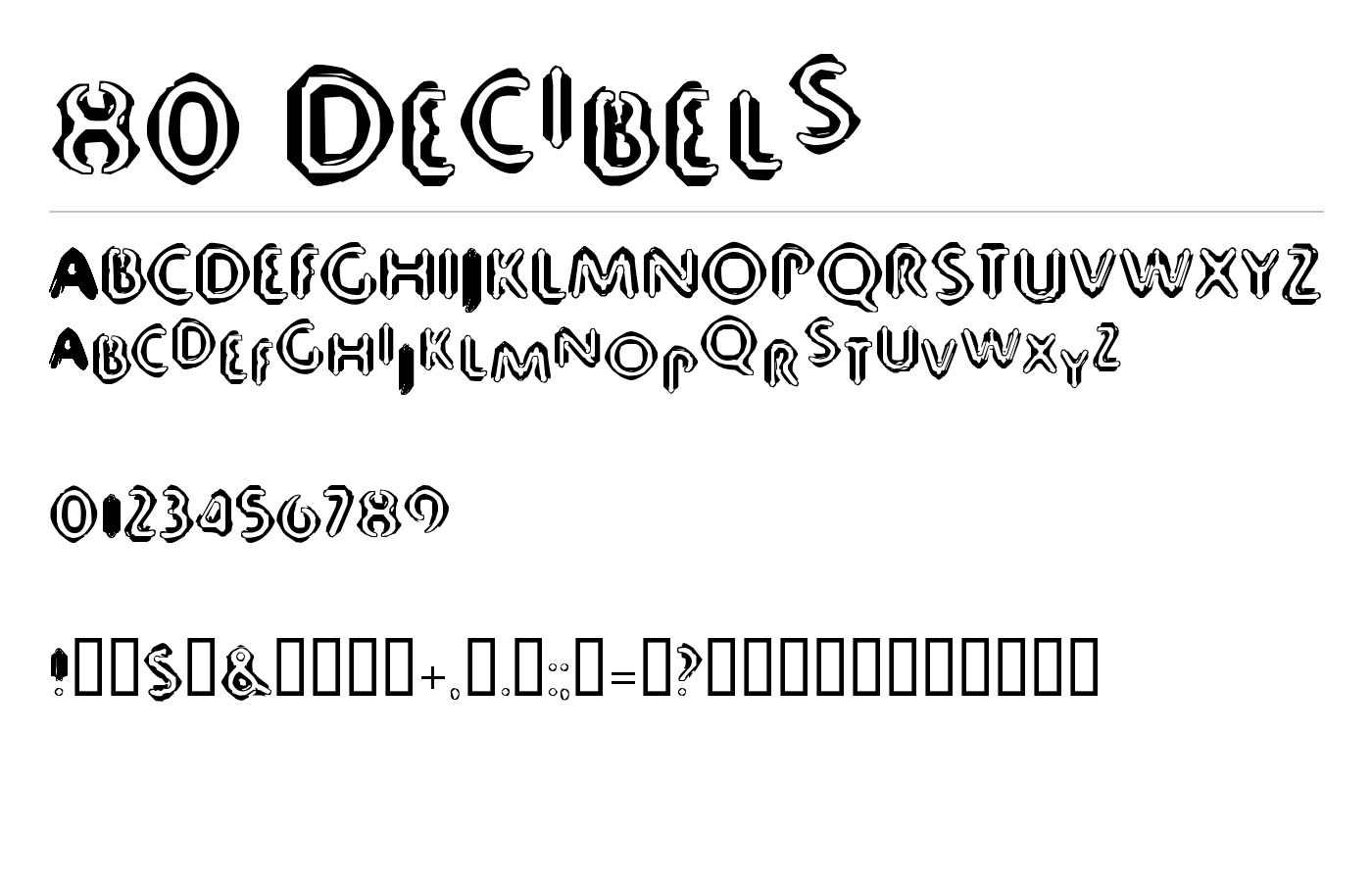
80 Decibels is a bold, playful display font with a lively, hand-drawn feel characterized by its thick, uneven strokes and unique three-dimensional shadow effect. Its quirky letterforms and irregular shapes make it perfect for eye-catching headlines, posters, and creative branding where a fun, energetic personality is desired. This font works best in designs that want to convey a sense of vibrancy and individuality rather than formal sophistication.
80 Decibels Font
About 80 Decibels Font